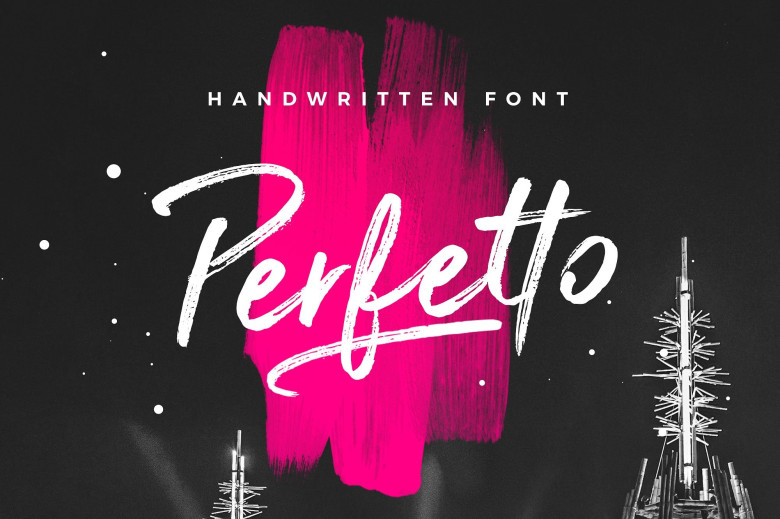
Perfetto Brush Font
Introducing Perfetto! It is designed by Davide Bassu, this is a premium font, are sold on creativemarket, but it was great, it is free today for download. Perfetto – a handwritten brush Font with authentic dry brush strokes drawn on paper. Perfect for logo designs, poster design, social media, typographic quotes over photos, book covers and packaging design.